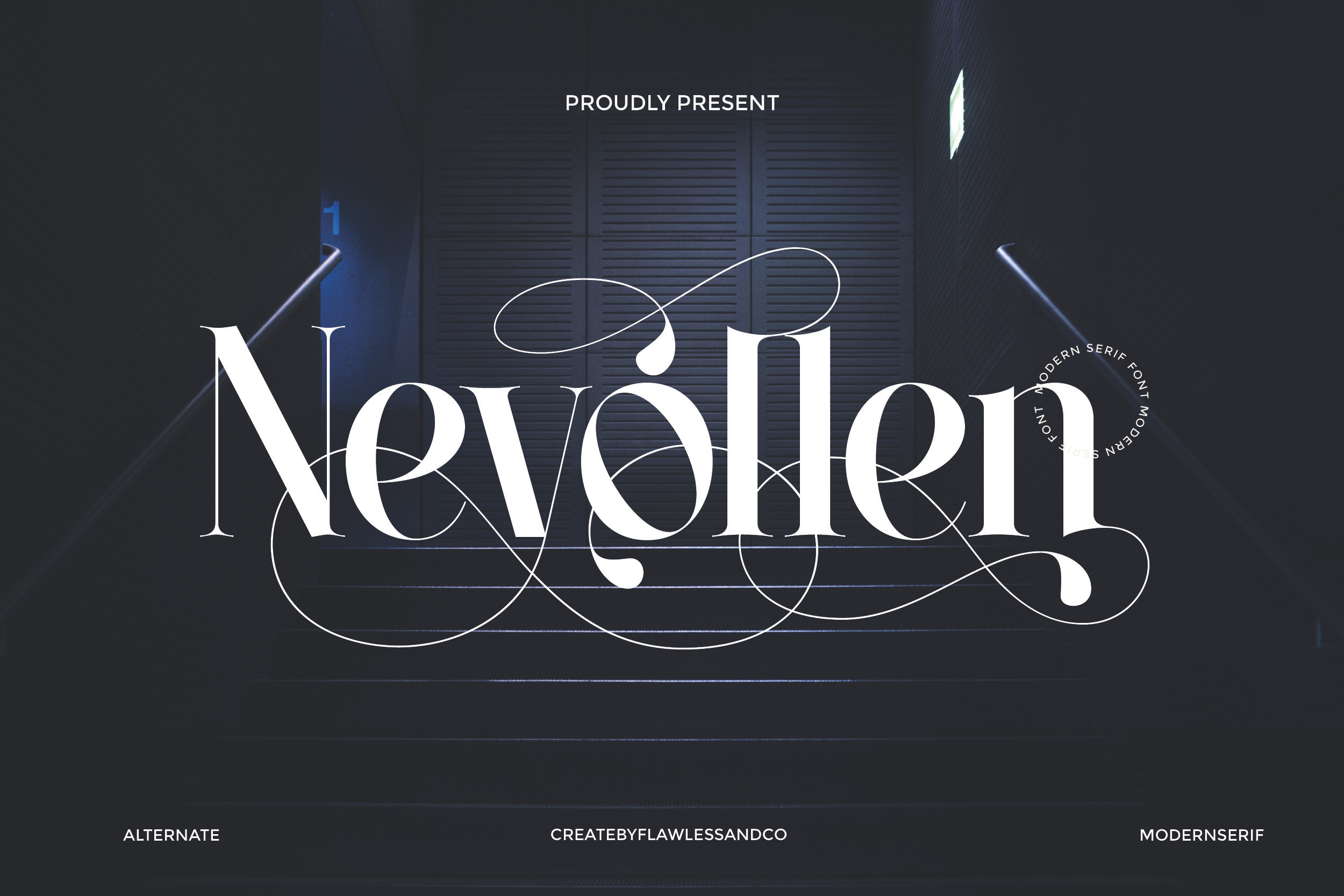
Nevollen - Modern Serif Font
NEVOLLEN – Modern Elegant Serif Font
NEVOLLEN is a modern serif font that blends refined structure with bold sophistication. Inspired by timeless editorial design and elevated with a contemporary edge, NEVOLLEN stands out with its high contrast, sharp serifs, and sleek letterforms. Perfect for impactful design projects such as fashion branding, editorial layouts, logo design, and elegant packaging, NEVOLLEN brings a confident and polished presence to any composition. Each letter is carefully crafted to balance modern minimalism with classic detail, giving your typography a sense of both authority and style. The font includes elegant alternates and distinctive ligatures, offering creative flexibility to enrich your design with unique visual flair.
Use NEVOLLEN to create bold, refined, and unforgettable typographic statements.
Who Should Use Nevollen?
Nevollen is crafted for designers, creatives, and brands who value modern elegance and timeless sophistication.
This font is perfect for:
- Luxury brands & fashion designers who seek refined, artistic typography
- Packaging designers looking for a stylish serif with visual impact
- Branding agencies developing premium visual identities
- Editorial teams and magazine layouts that demand graceful, statement type
- Logo designers aiming to combine tradition with modern flair
- Wedding & event creatives in search of romantic, expressive fonts
Whether you're working on print, digital, or experiential design, Nevollen delivers a harmonious balance of class and creativity—making every project feel polished and unforgettable.
A Must-Have Font for Brand, Logo, and Packaging Creators and Designers
Nevollen is more than just a typeface — it's a signature of refined taste. Designed for creatives who value elegance and precision, Nevollen enhances brand identities, product packaging, and logo compositions with graceful impact. Its sophisticated form makes it an essential tool for designers aiming to create visuals that feel luxurious, modern, and unforgettable.
Why Choose Nevollen for Brand, Logo, Packaging, and Wedding Projects?
Nevollen isn’t just a typeface—it’s a visual signature. With its elegant curves, high contrast strokes, and refined alternates, Nevollen brings a sense of luxury and artistry to every design it touches. Whether you’re creating a premium brand identity, a stylish logo, eye-catching packaging, or romantic wedding stationery, Nevollen offers the perfect blend of modern sophistication and classic charm. Its graceful ligatures and creative alternates allow for endless customization, making your typography feel truly personal and distinctive. Nevollen doesn’t just fill space—it commands attention, tells a story, and elevates every detail. Make your design unforgettable—choose Nevollen for bold beauty and refined expression.